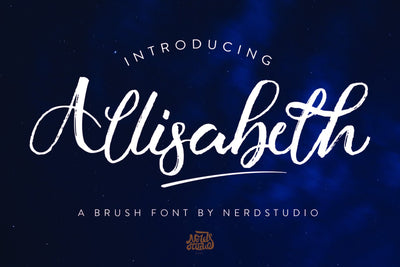
Allisabeth Brush Font
Allisabeth is a Brush Font, This font is handmade and has a powerful character with SALT and ligatures. The font is work specialty is good for product design like a Template/mockup, Post, T-shirt, Quote, New Years Present, typography design, etc. This product is inspirational for your creative design.